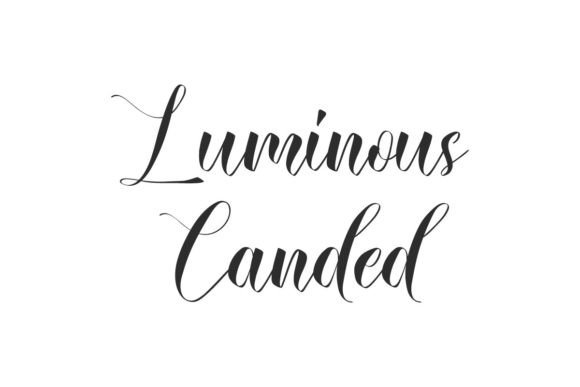
Step into the realm of exquisite typography with Luminous Canded Font, a script font that exudes elegance and sophistication. Crafted by the talented team at NihStudio, this masterpiece is a visual symphony that combines the allure of calligraphy with a contemporary twist.
With its graceful lines and impeccable readability, Luminous Canded Font elevates your designs to new heights. Whether you're creating captivating logos, unforgettable invitations, or eye-catching labels, this font adds a touch of luxury and refinement that leaves a lasting impression.
Imagine your designs adorned with the brilliance of Luminous Canded Font. Its versatility knows no bounds, effortlessly enhancing billboards, magazine catalogs, and packaging designs. Quotes, stationery, stickers, and titles take on a new life, imbued with an aura of sophistication and timeless beauty.
Luminous Canded Font is more than just a font; it's an artistic expression that transforms your creative visions into tangible works of art. Its delicate flourishes and elegant curves add a touch of magic to watermarks, websites, and countless other applications.
Join the ranks of discerning designers who recognize the power of Luminous Canded Font. Let your imagination soar as you explore the endless possibilities this font offers. Experience the joy of creating designs that captivate and inspire, leaving an indelible mark on your audience.